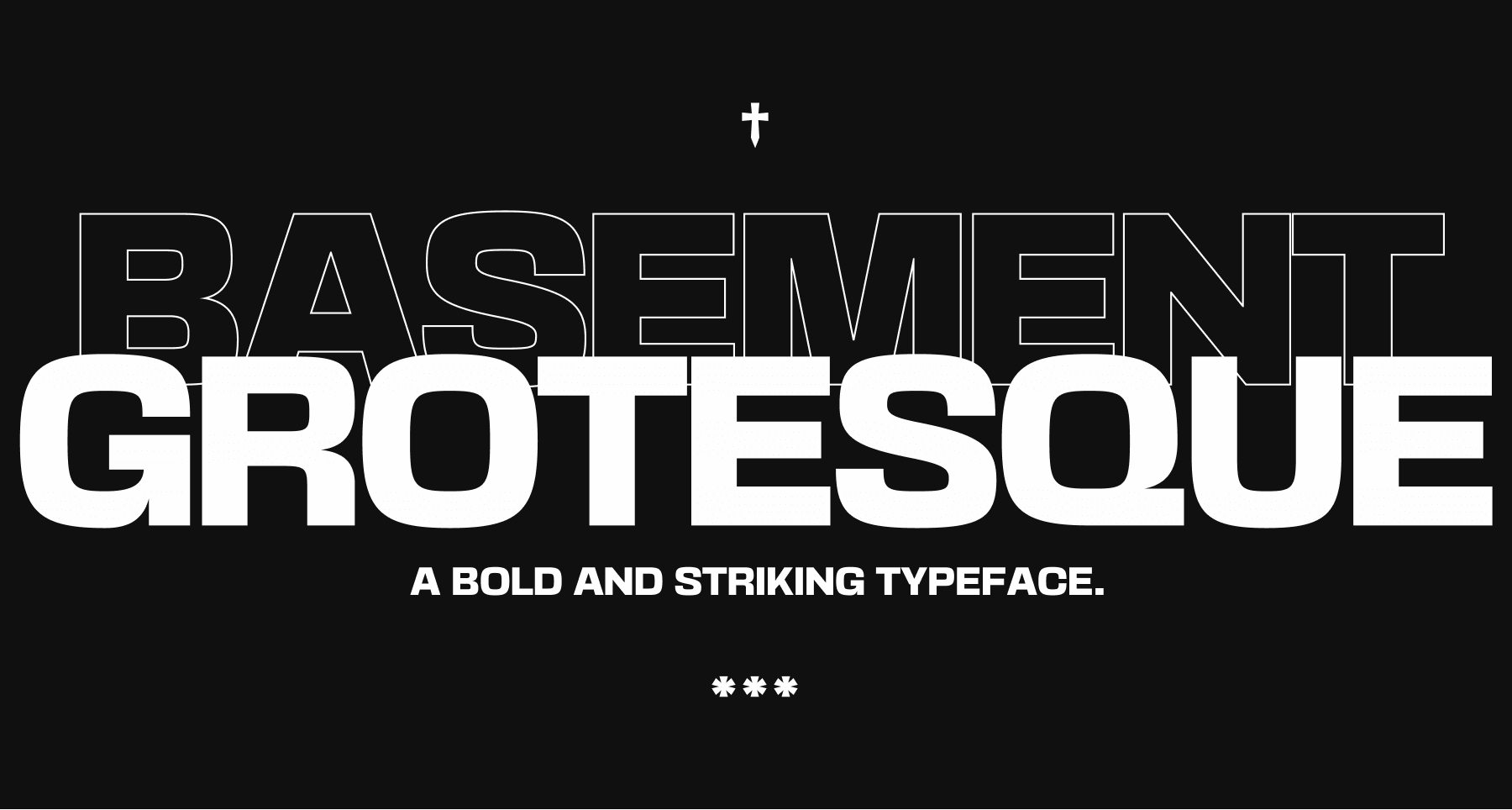
Basement Grotesque Font
Basement Grotesque is a geometric, sans-serif font that brings a fresh, modern look to any design. Inspired by the expressiveness of early 19th-century grotesque typefaces and the boldness and striking visuals of the contemporary revival of brutalist aesthetics. It comes with a heavy weight: striking and unapologetically so; flawed but charming and full of character.